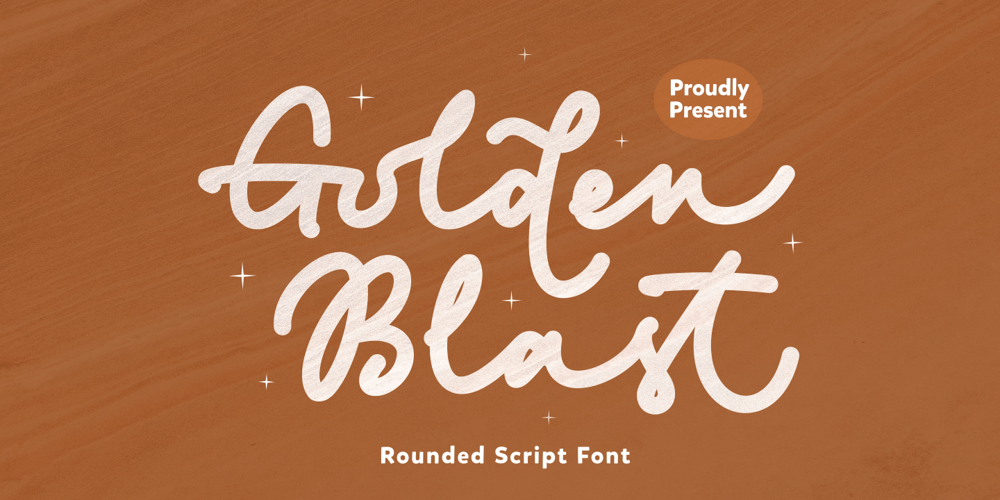
Golden Blast
Golden Blast font
Golden Blast Font Family was designed by Zeenesia Studio and published by Zeenesia Studio. Golden Blast contains 1 styles and family package options. Golden Blast is a Bold Signature Font script with a natural & stylish flow. This collection of scripts is perfect for personal branding. It was made with the intention to be used for your personal branding. But, this works well for many applications. Everything from personal branding, photography signature, product packaging, advertising could benefit from this collection of this bold signature fonts.These typefaces work well for many different aesthetics. They work well with something like ‘cosmetics’ for example but would also work well with Liquor Labels, Signage, & any type of signature-styled logo.